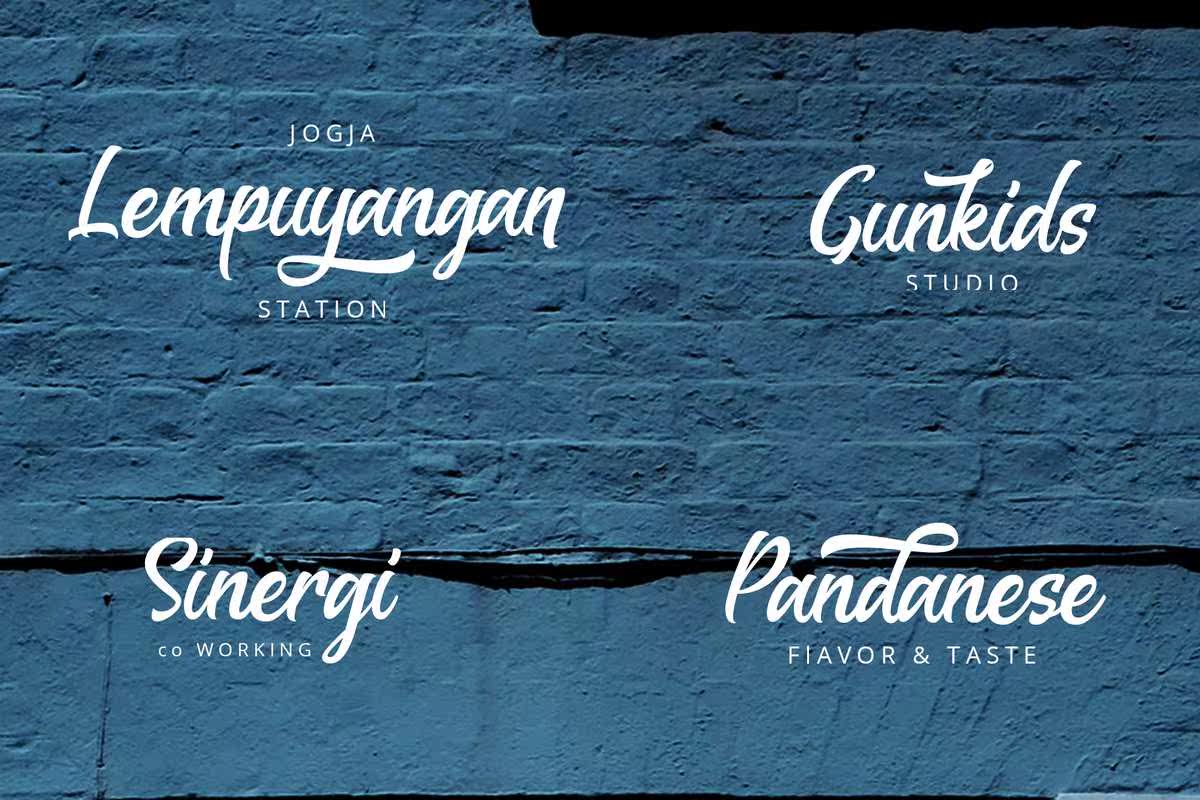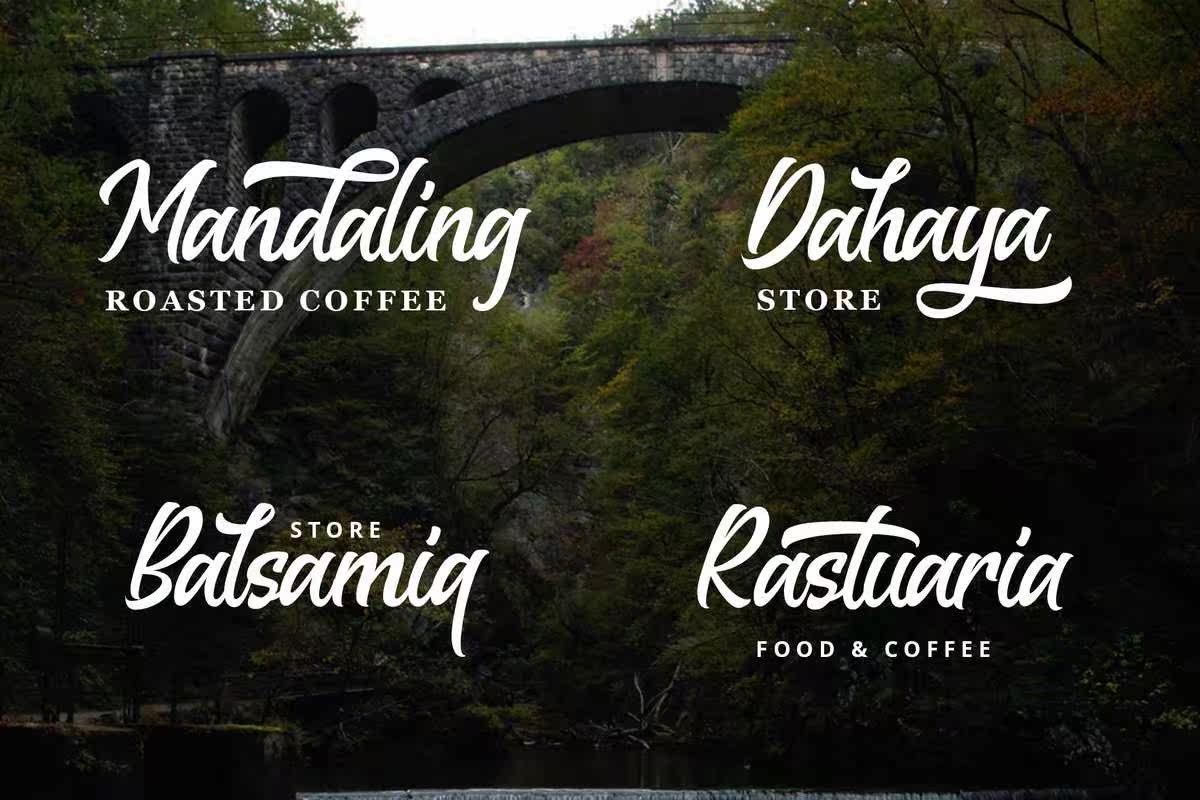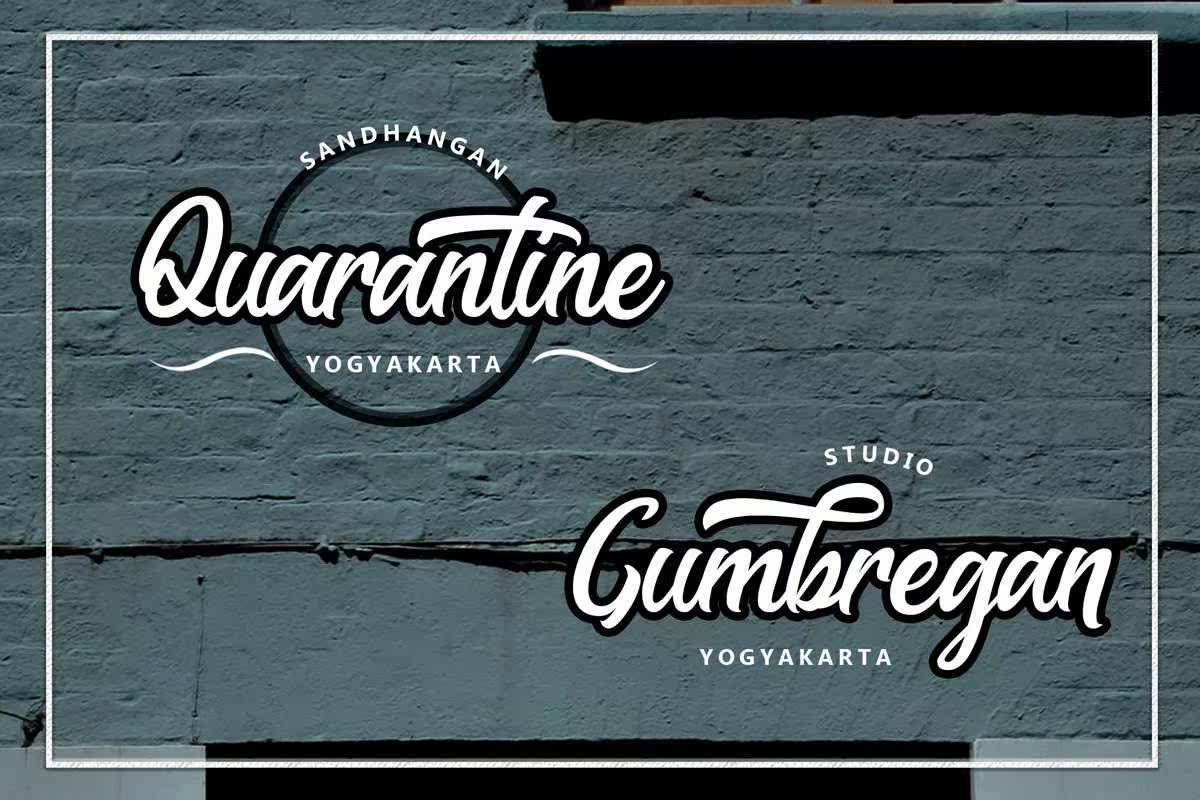
BoldScriptFonthat Created and Inspired from Indonesian Andletter,Good ForLogotype,apparel,logo,poster。此Fonthat仅供个人使用。BoldScriptFonthat Created and Inspired from Indonesian Andletter,Good ForLogotype,apparel,logo,poster。此Fonthat仅供个人使用。